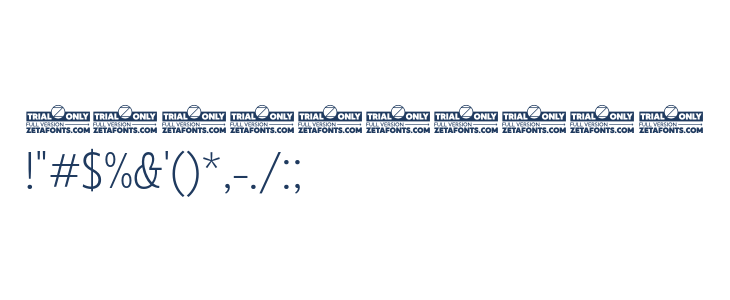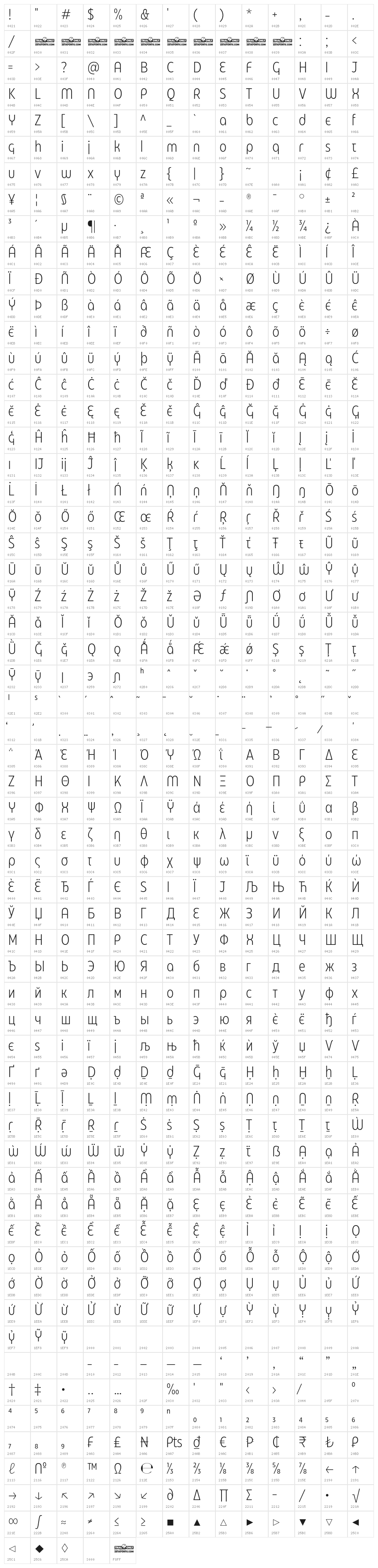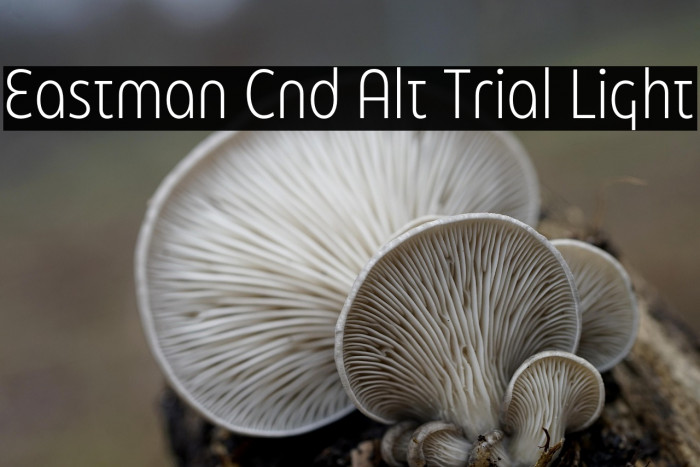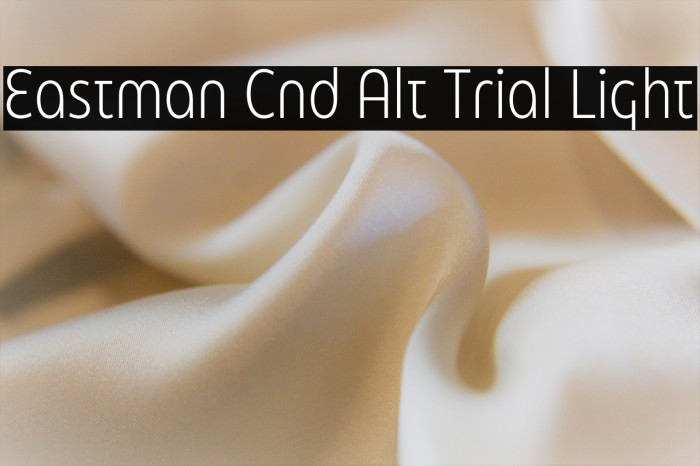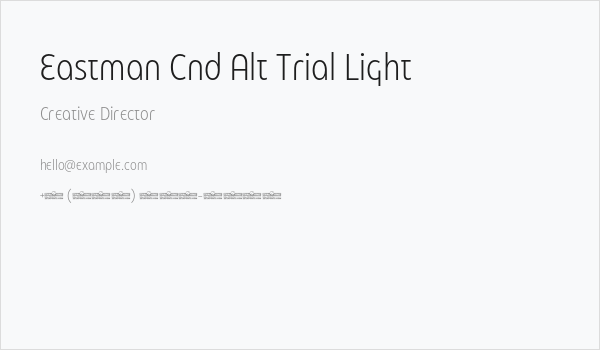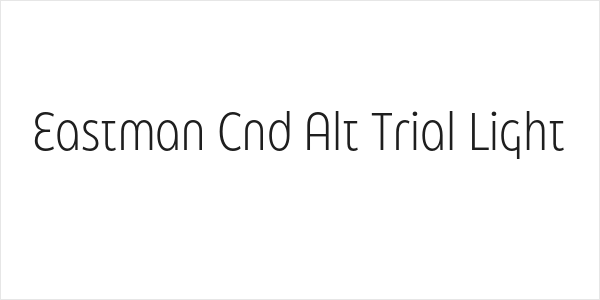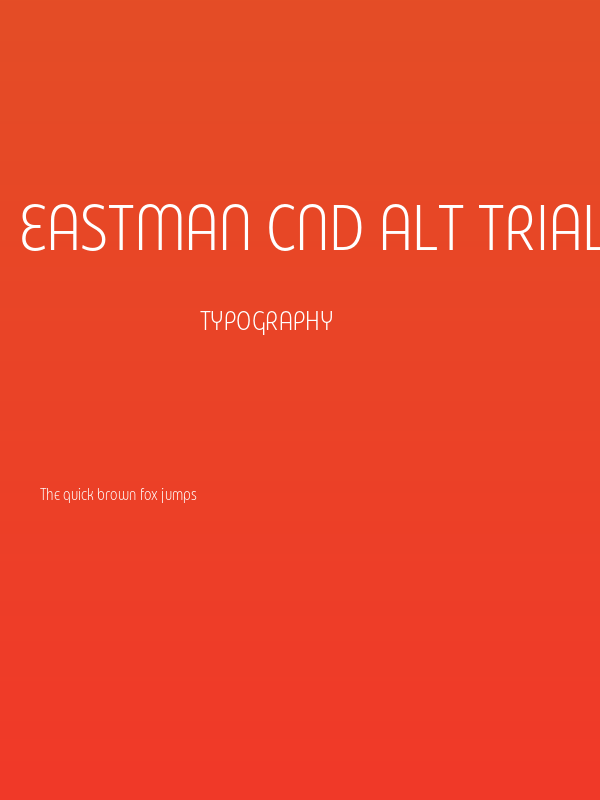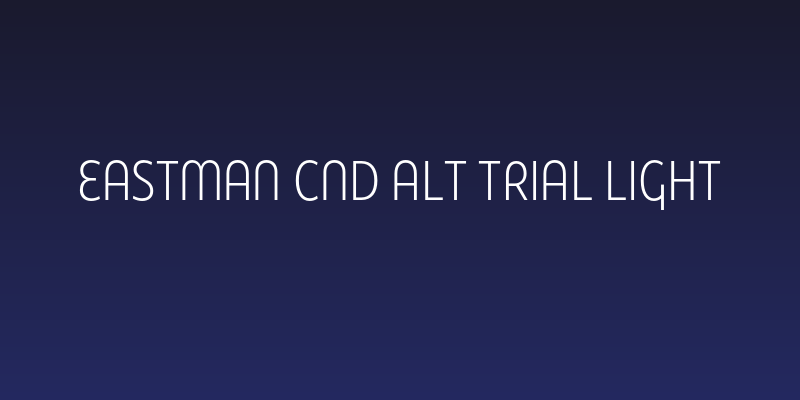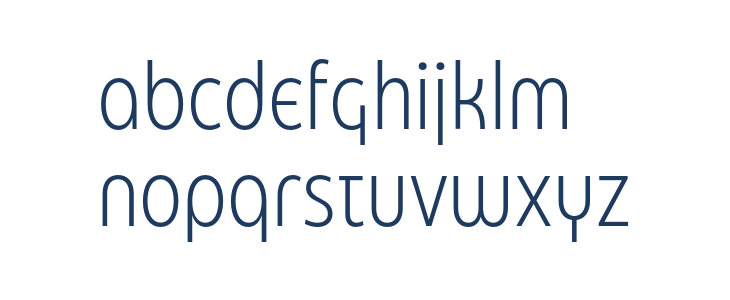
Eastman Cnd Alt Trial Light Font
Eastman Cnd Alt Trial Light Description
This font features a modern and clean sans-serif style with a condensed structure. The characters are elegantly elongated, providing a sleek and contemporary appearance. The uniform stroke width throughout the letters contributes to a minimalist aesthetic, making it suitable for a variety of design applications. The uppercase and lowercase letters maintain a consistent style, with rounded edges that soften the overall look. The numerals and special characters are designed to match the font's streamlined and cohesive appearance, ensuring readability and versatility.
| Proposed Projects | Ideal for branding, editorial design, advertising, and digital interfaces where a modern and clean look is desired. |